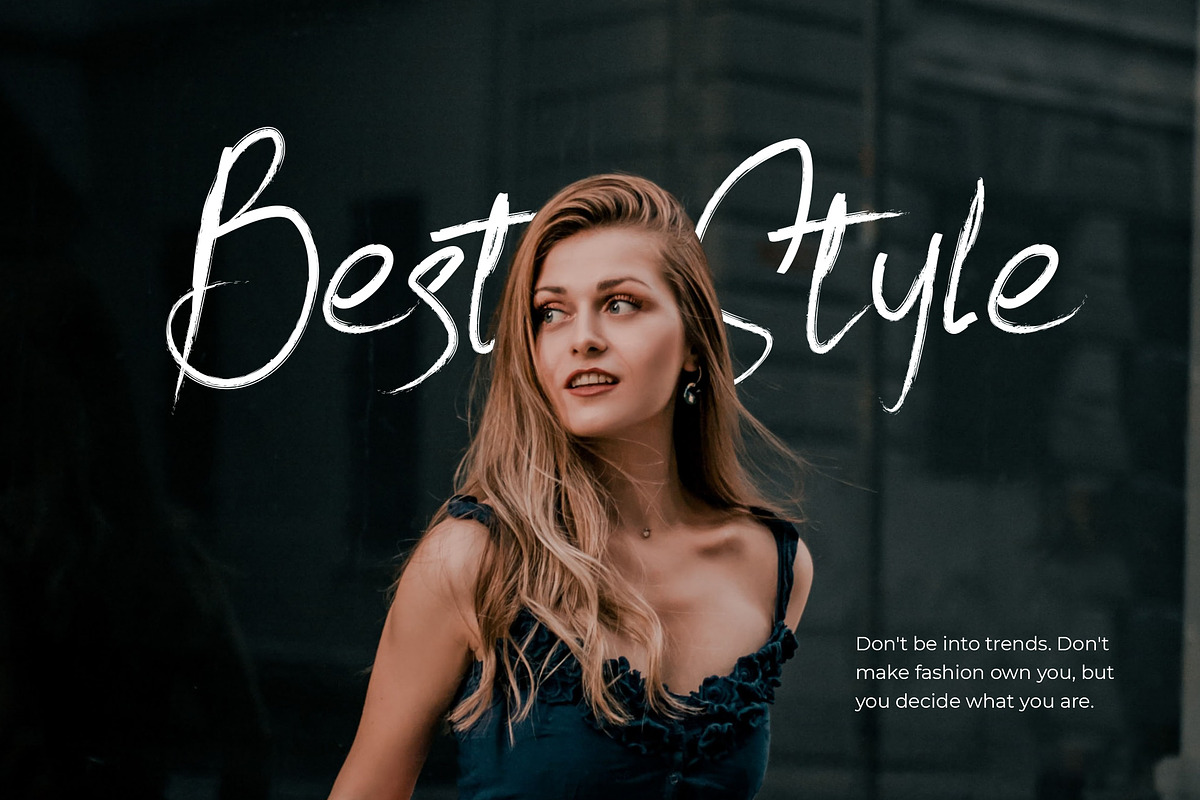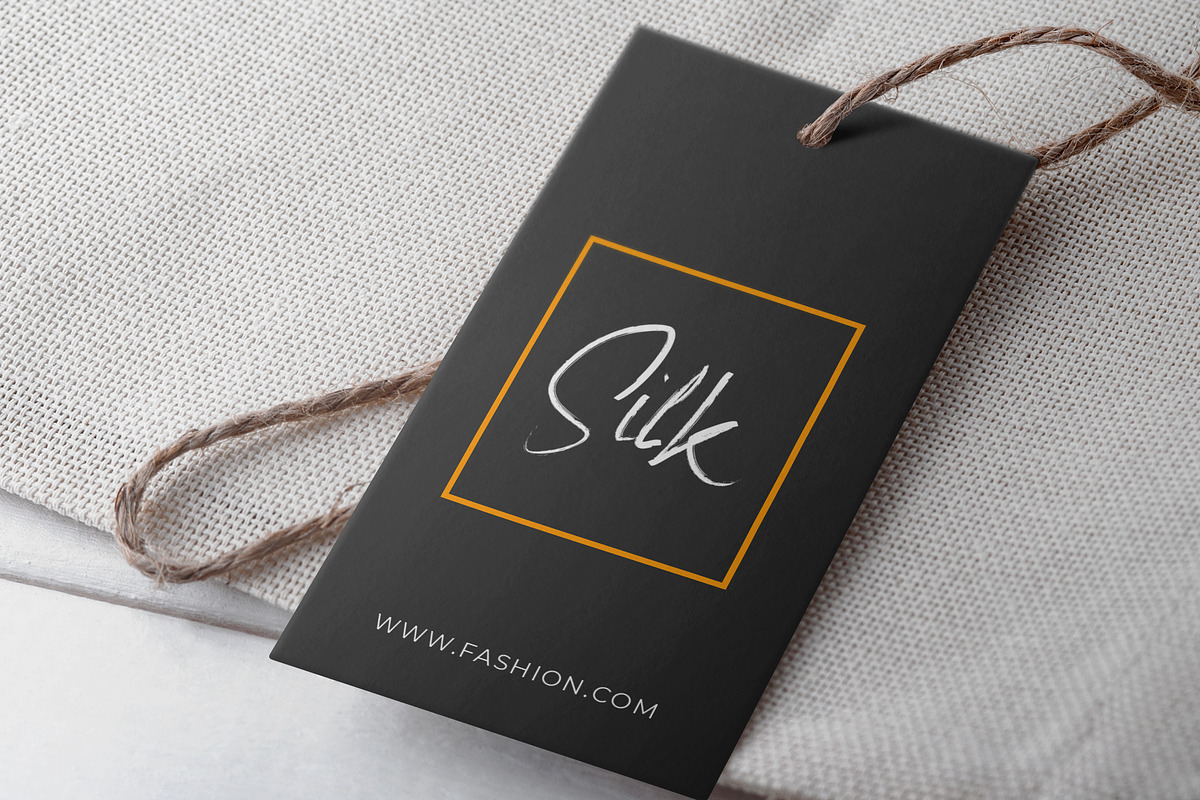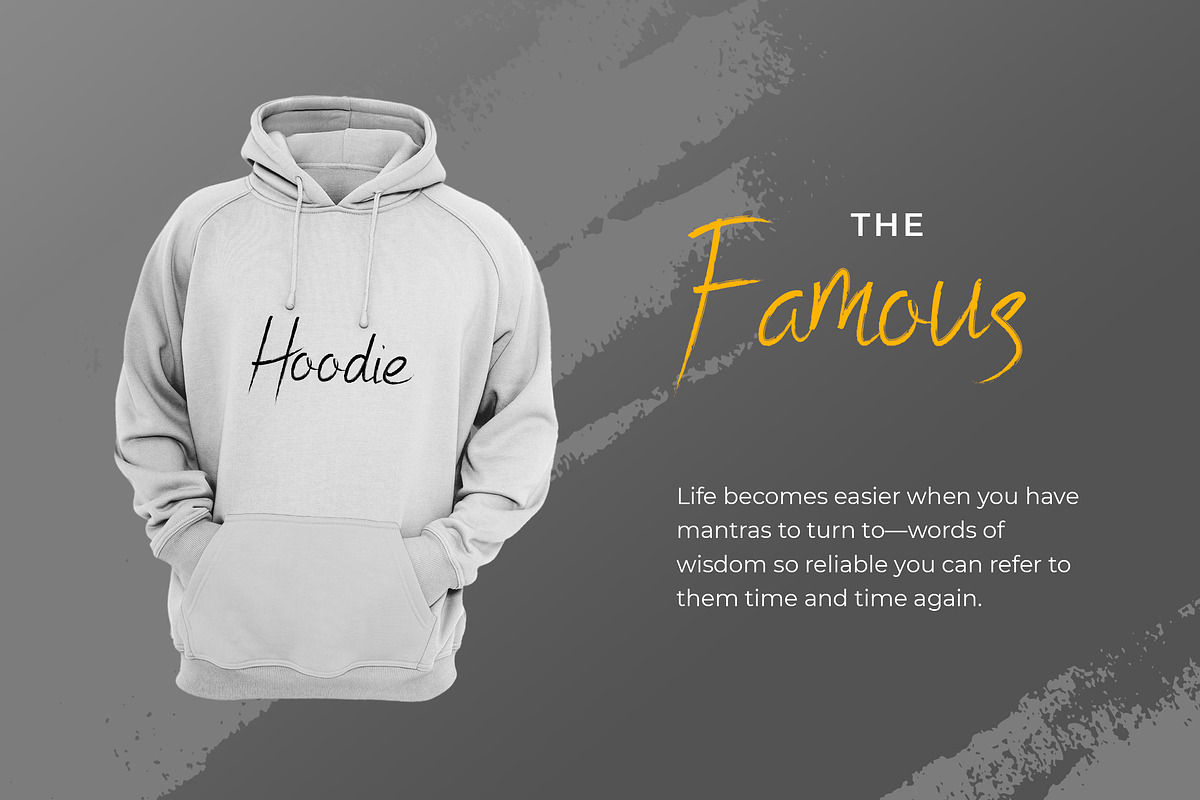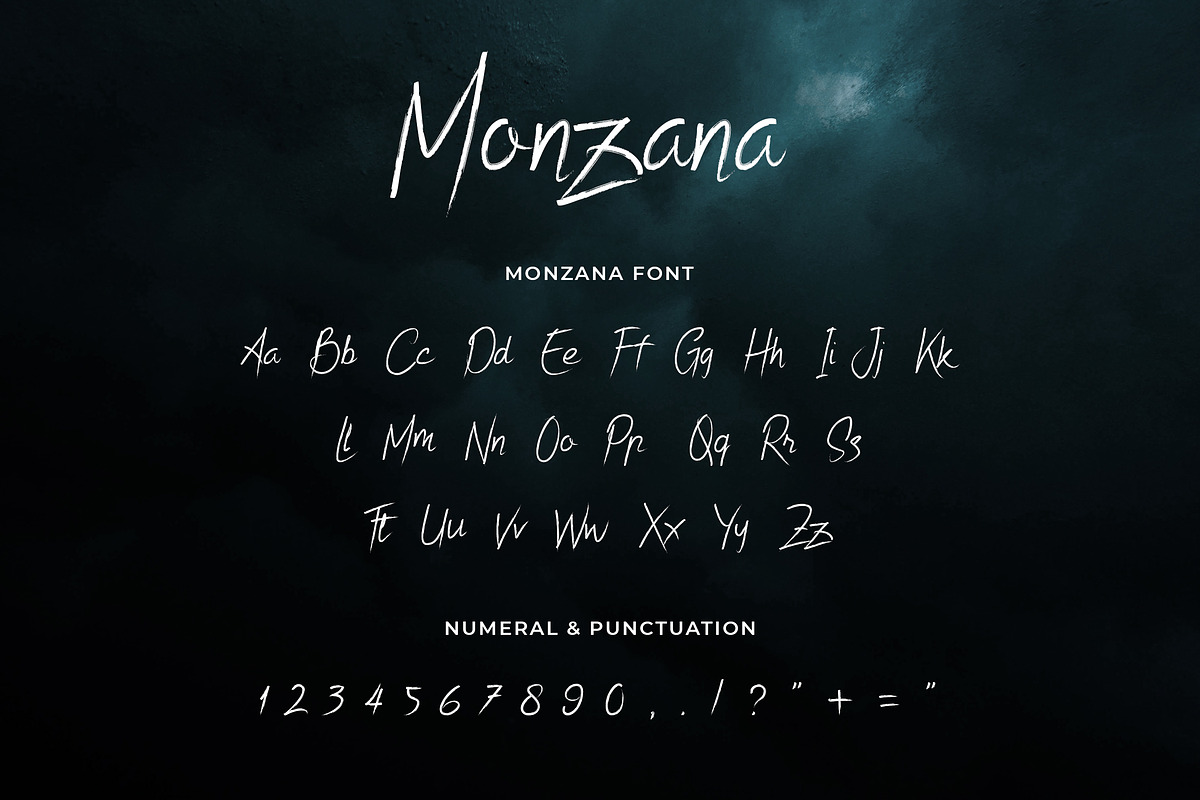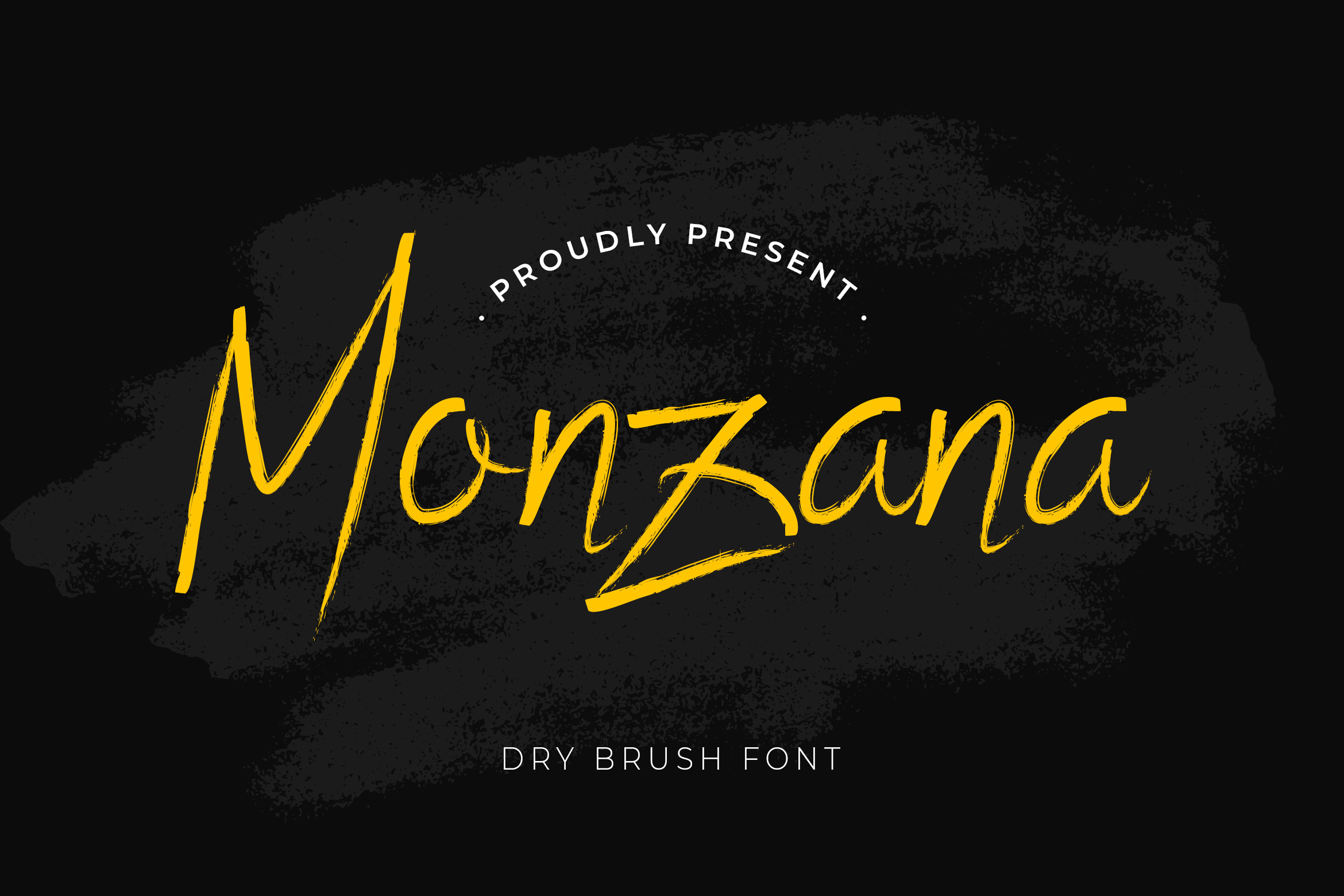
Monzana Brush Hanwritten Font
Monzana is unique handwritten font with a personal charm. With quick dry strokes and also has vintage display font. Can make it easier to convey the message in your design. Use for awesome display, labeling, clothing, movie sceen, poster, movie title, gigs, album covers, logos, and much more. It's also could be good for both fun and semi-formal text.